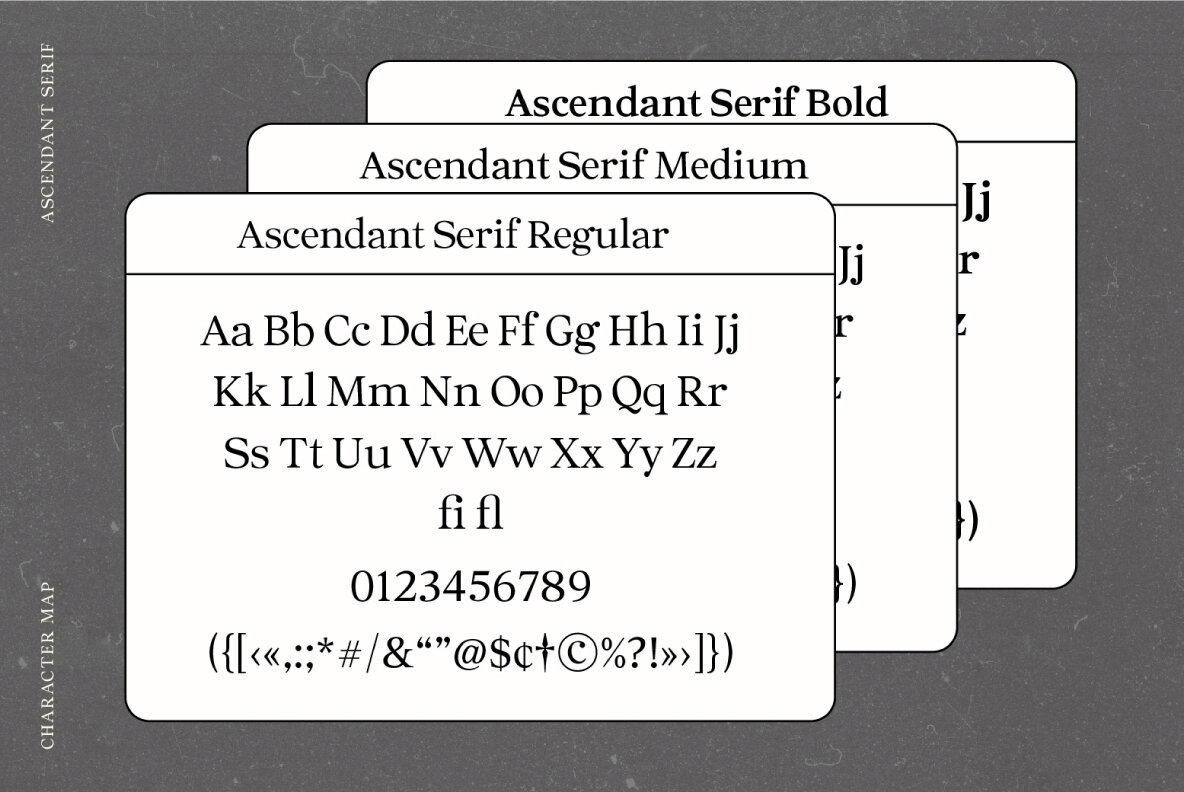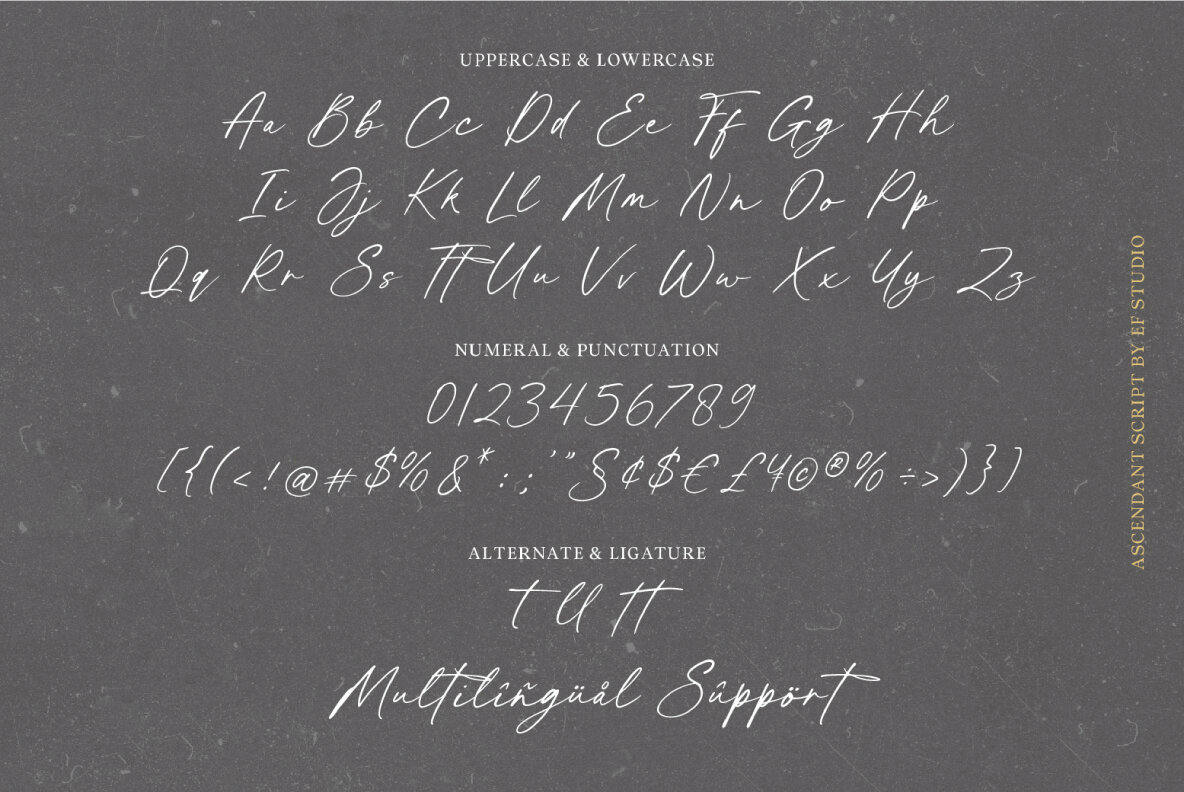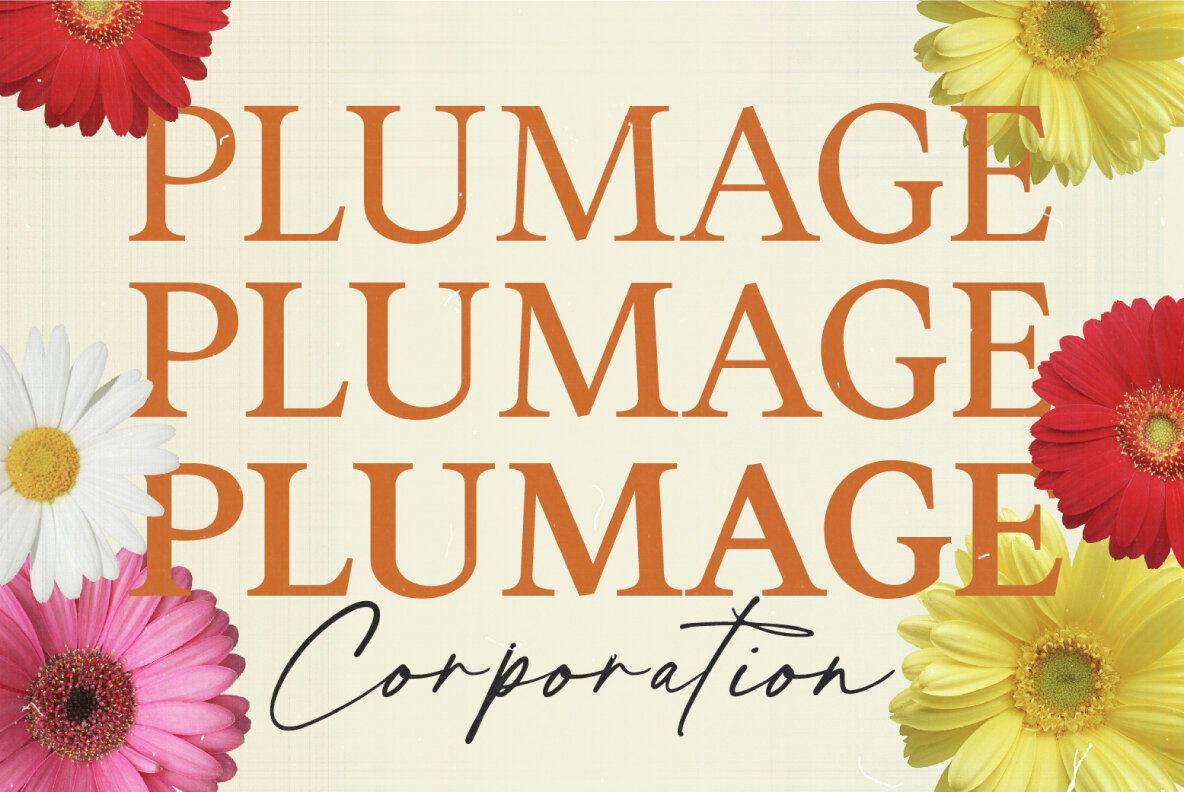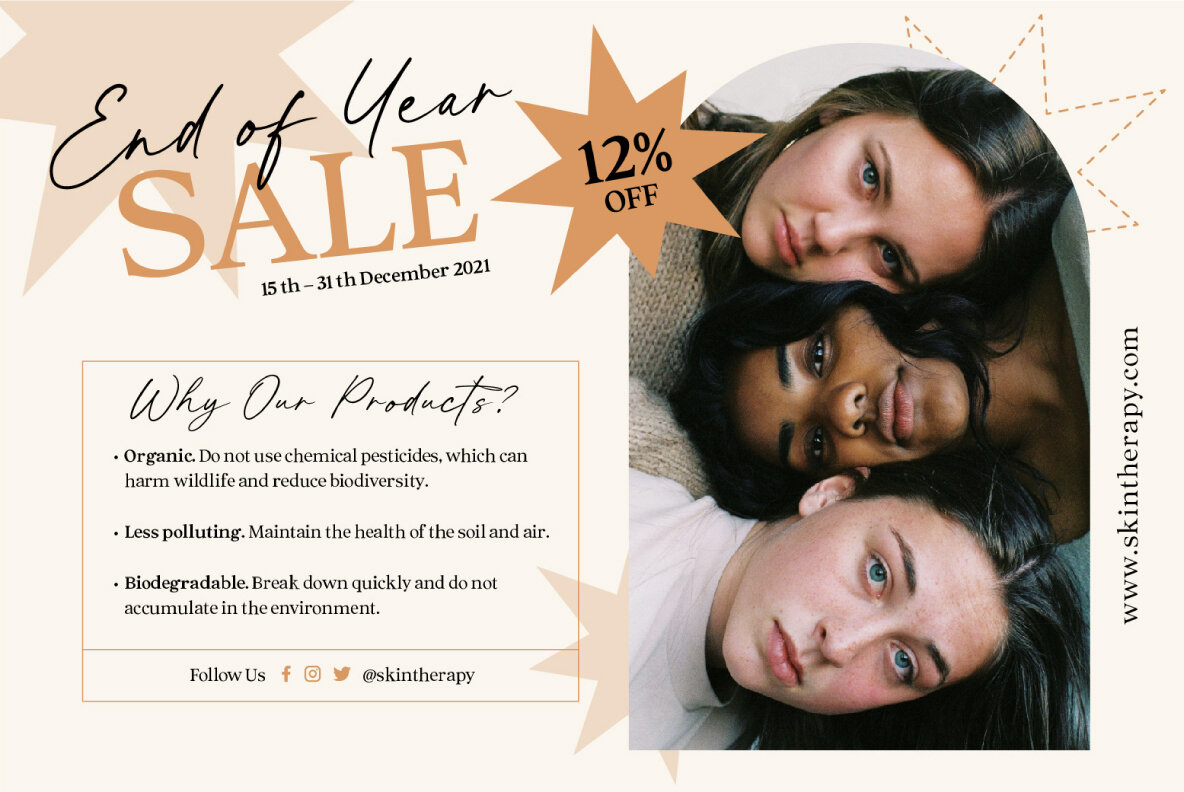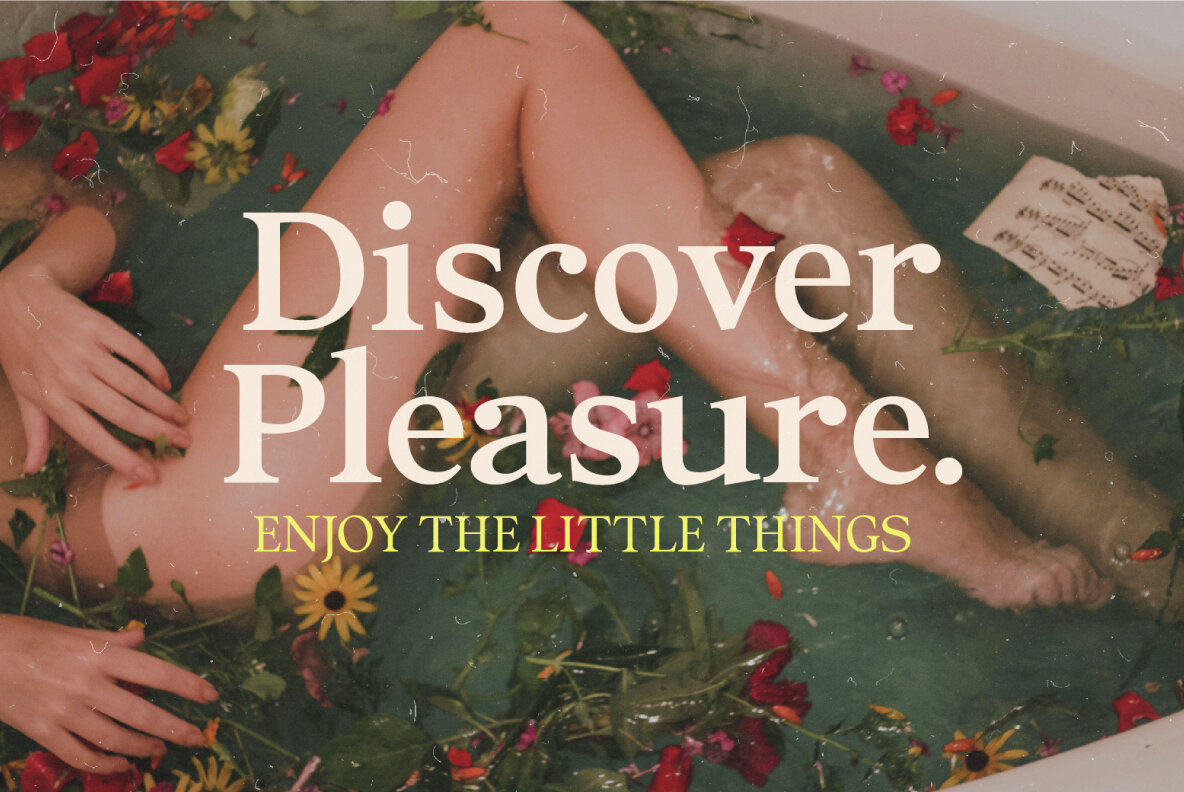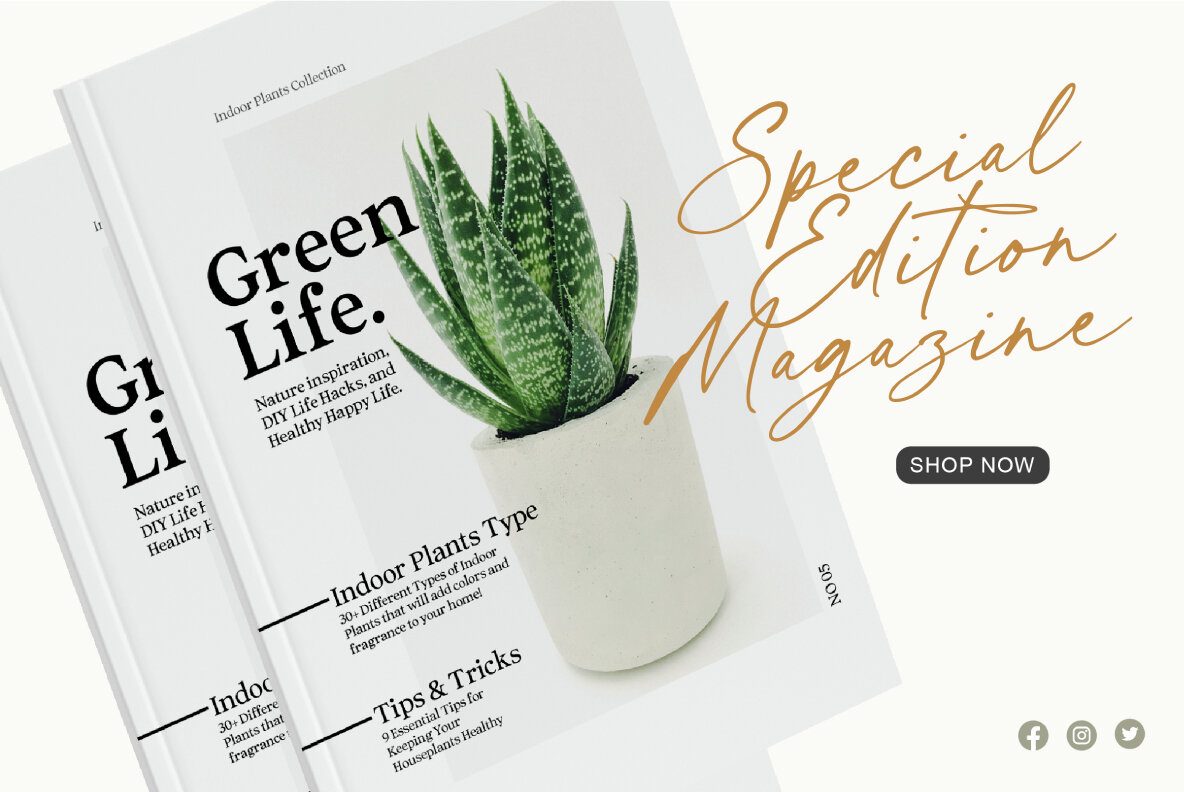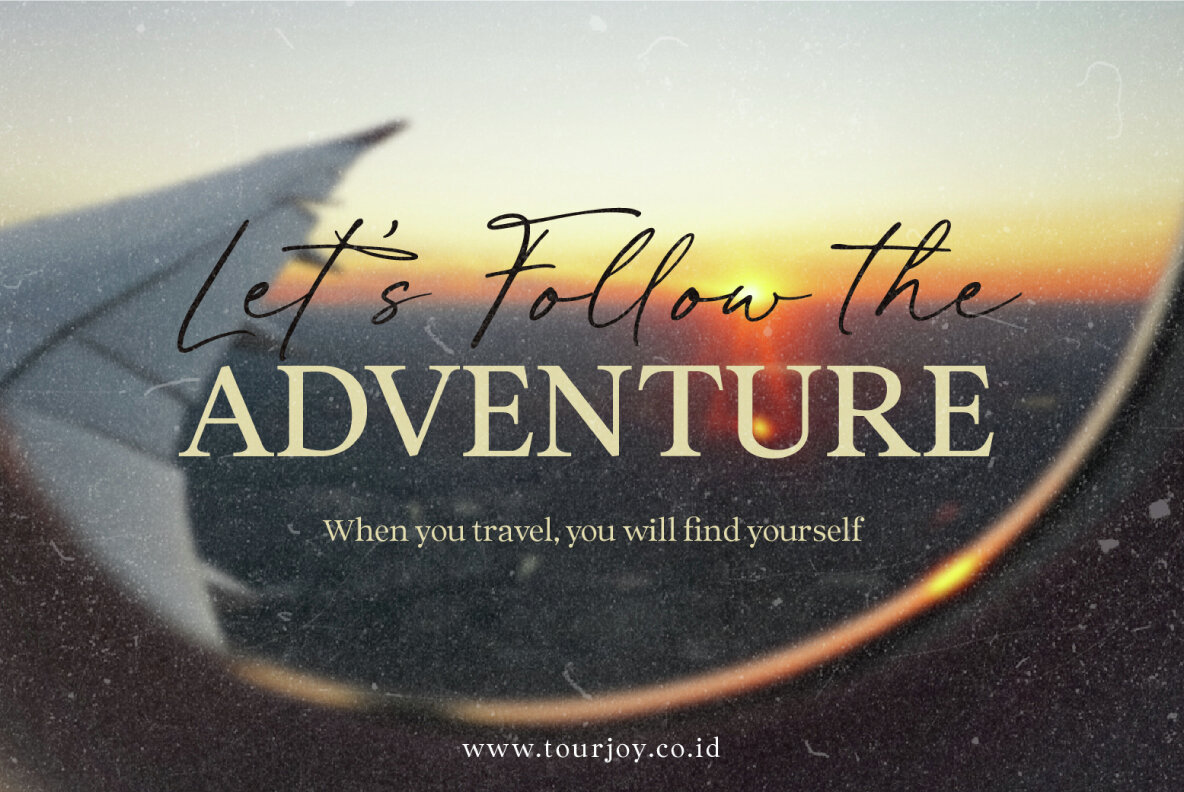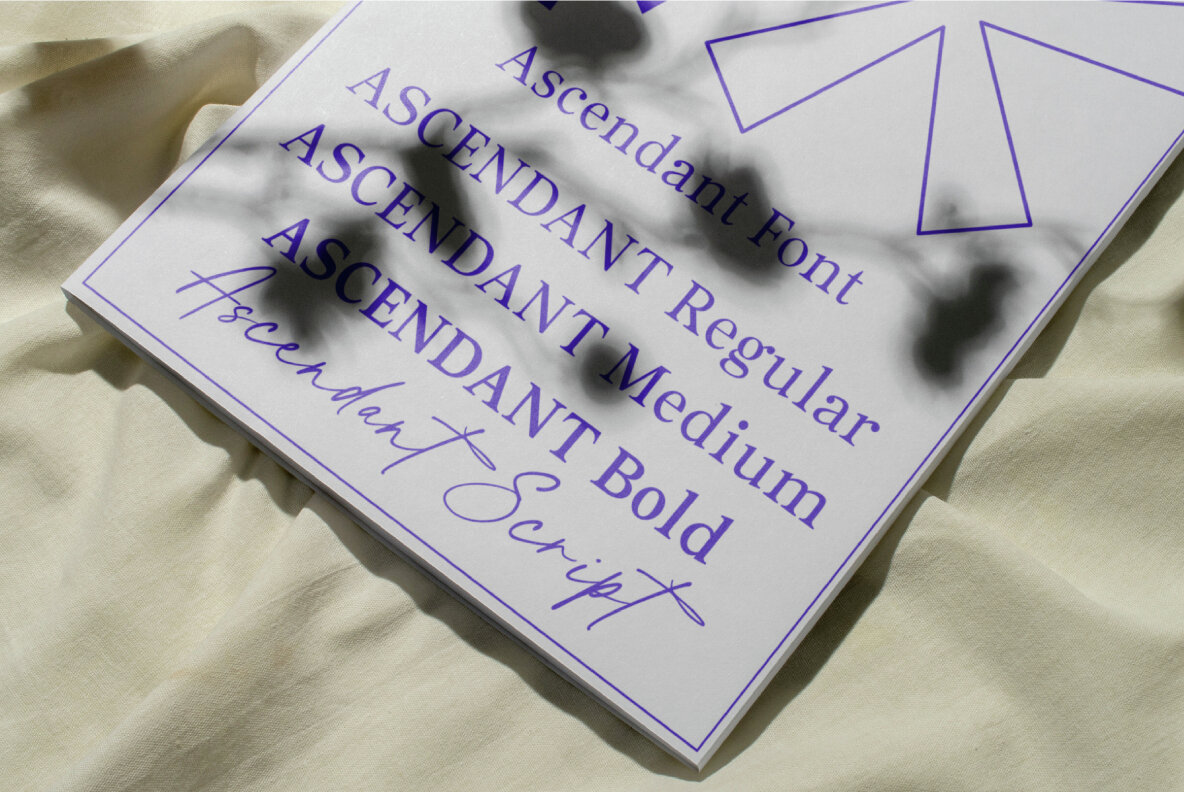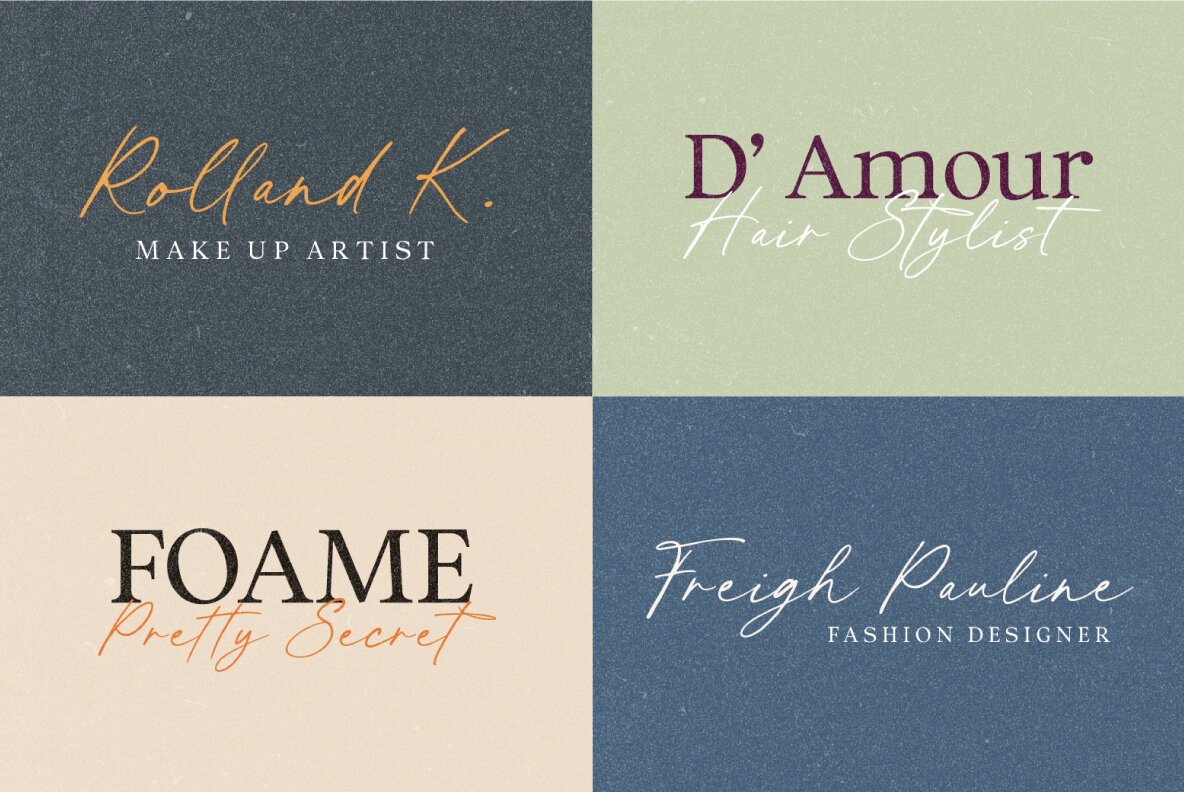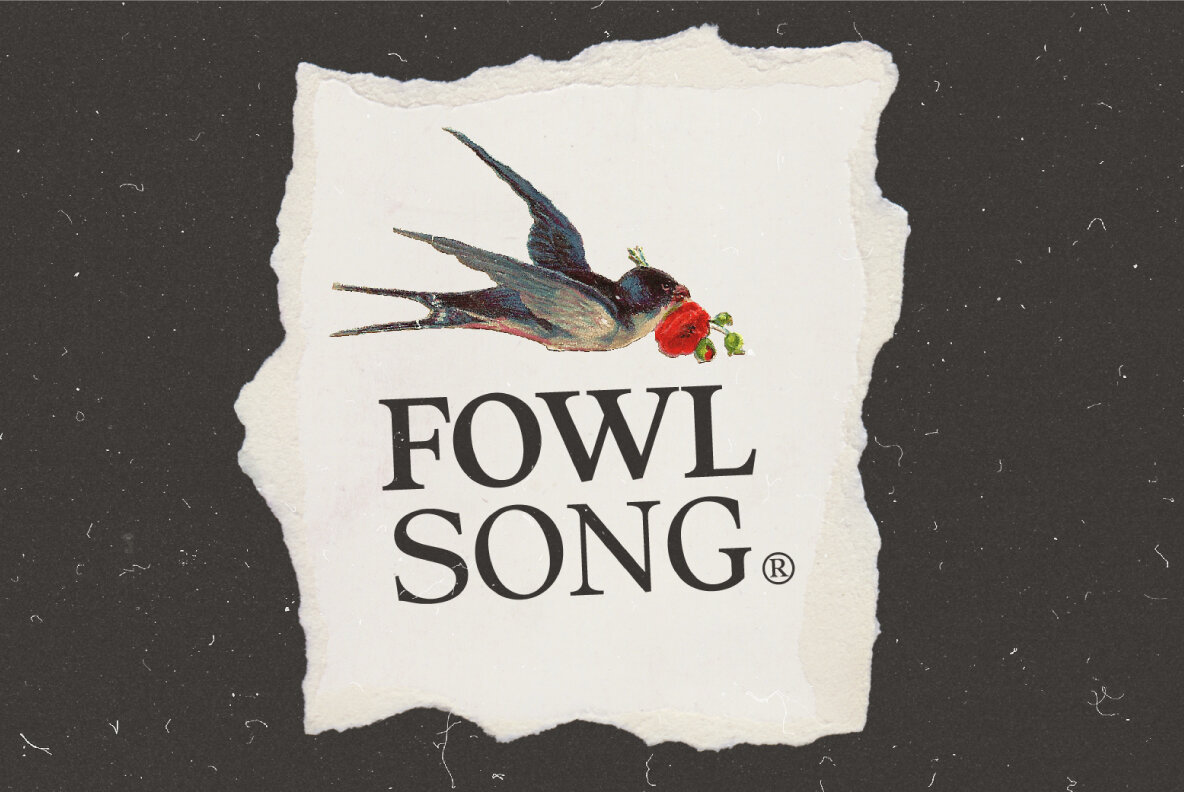
Ascendant Font
The Ascendant font duo offers a compelling combination of contemporary serif and elegant script, perfect for various design applications. From branding to editorial design, this dynamic duo adapts seamlessly to logos, books, posters, and magazines.Ascendant: A Versatile Font Duo for Creative Projects